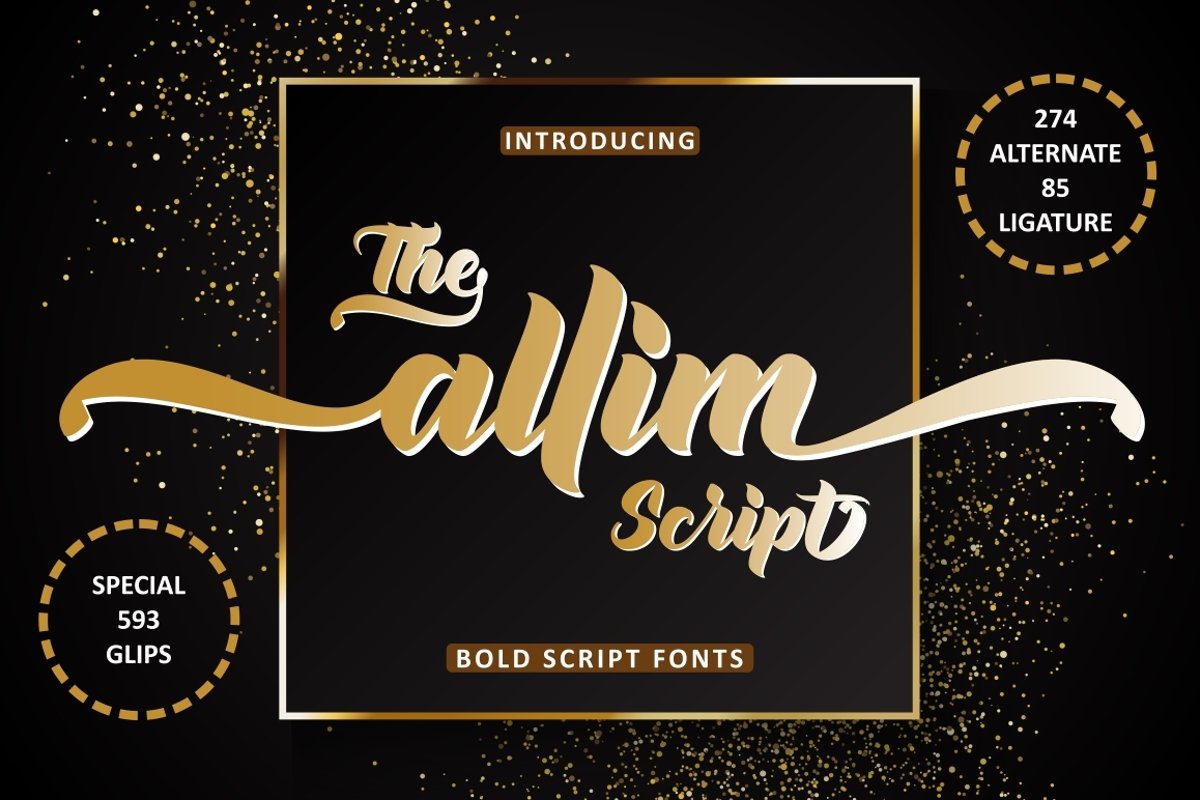
allim
I will introduce my newest product "allim"
This font is very modern, and is perfect for your design ...
This font is suitable for business cards, logos, covers, comics, invitations, etc.
Equipped with font:
- numbers
And of course there are several other features
- Alternates